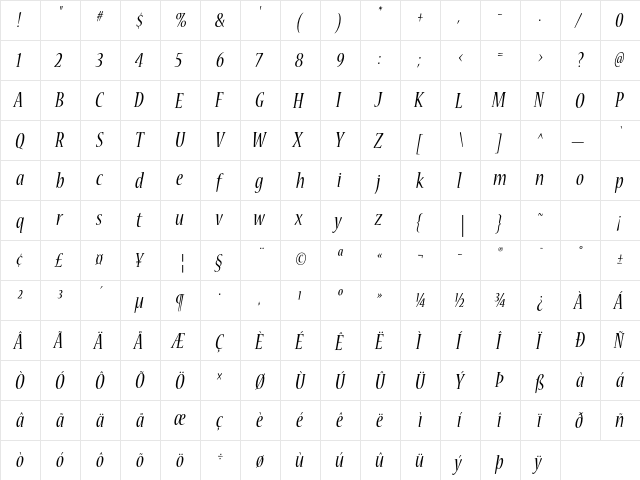
Nueva Std Condensed Italic Font Preview
| Designer | Carol Twombly |
Design Context for Nueva Std Typeface
Nueva Std is a composed and adaptable typeface that performs quietly and consistently across a wide range of design contexts. Its italic angle brings a sense of urgency and motion to the letterforms. The condensed width makes it efficient for tight spaces without sacrificing legibility.
Pro Tip: Try Nueva Std for annotation and caption copy alongside an upright companion — the contrast in angle creates a dynamic but ordered typographic system.